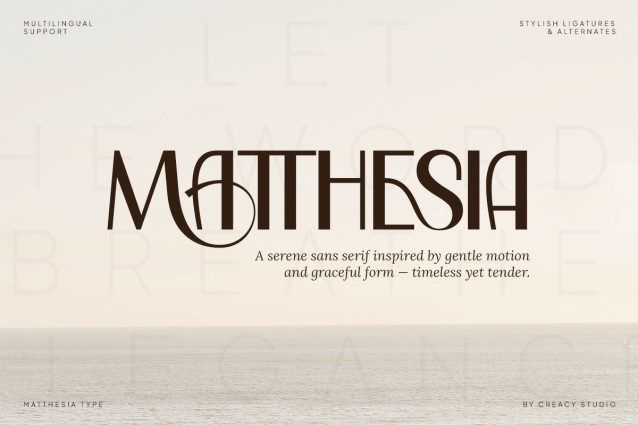
Matthesia Font
Matthesia Font is a refined sans serif typeface inspired by graceful motion and soft elegance. Designed to bring a sense of tenderness and timeless character, this font blends structured form with artistic flourish through stylish ligatures and unique alternates.
Perfect for branding, editorial, packaging, and signage, Matthesia’s high contrast strokes and flowing swashes make it especially ideal for high-end fashion, wellness brands, hotel logos, and inspirational messaging.